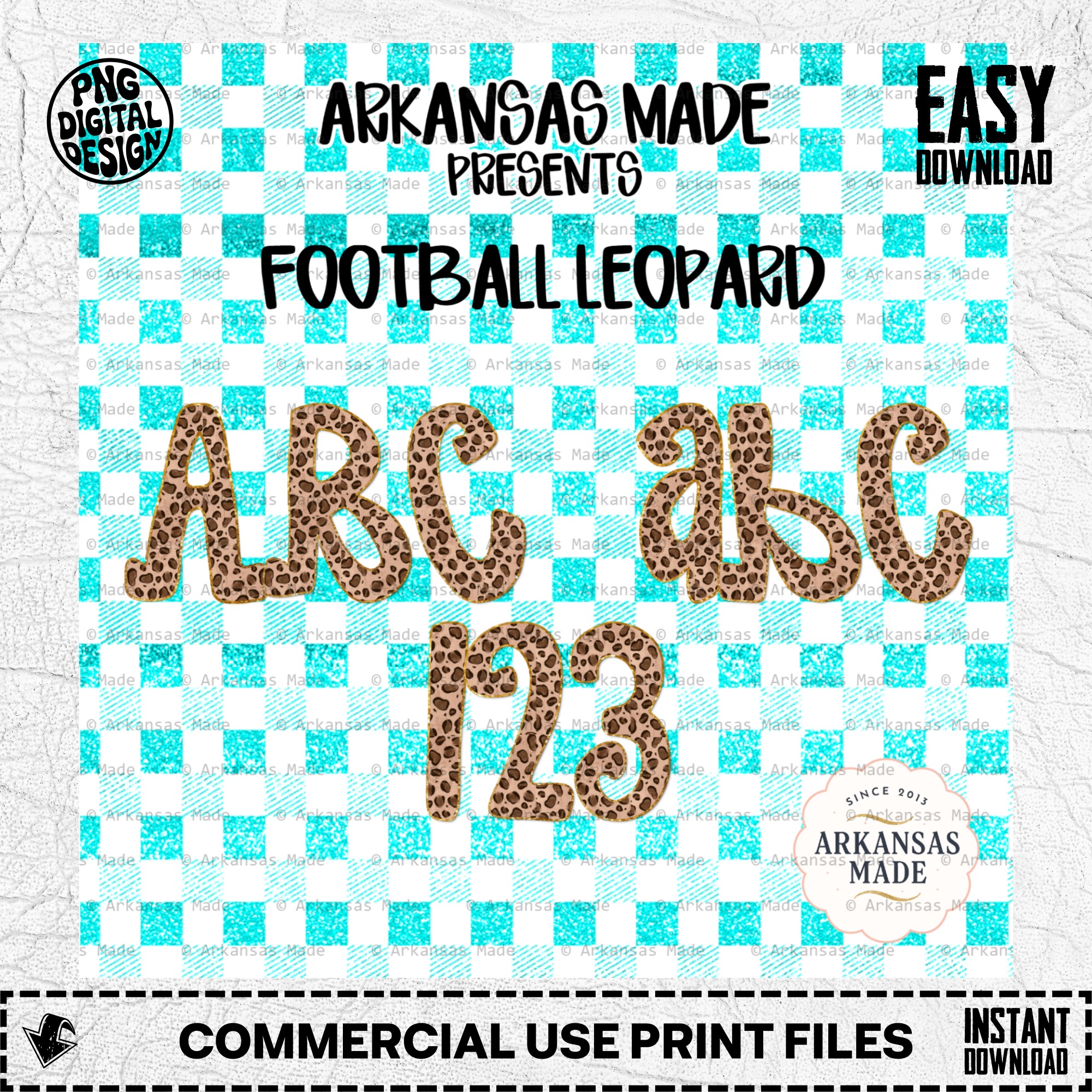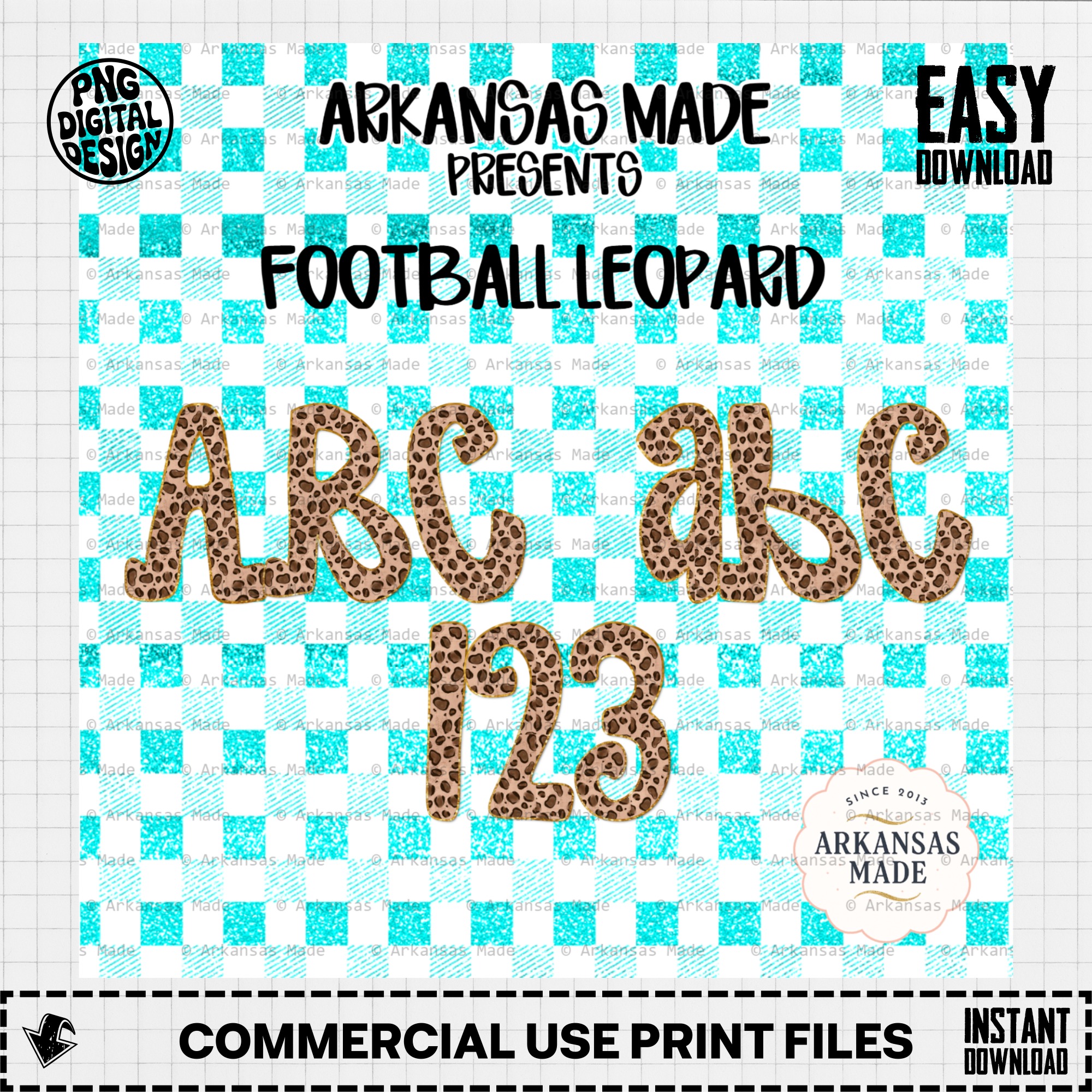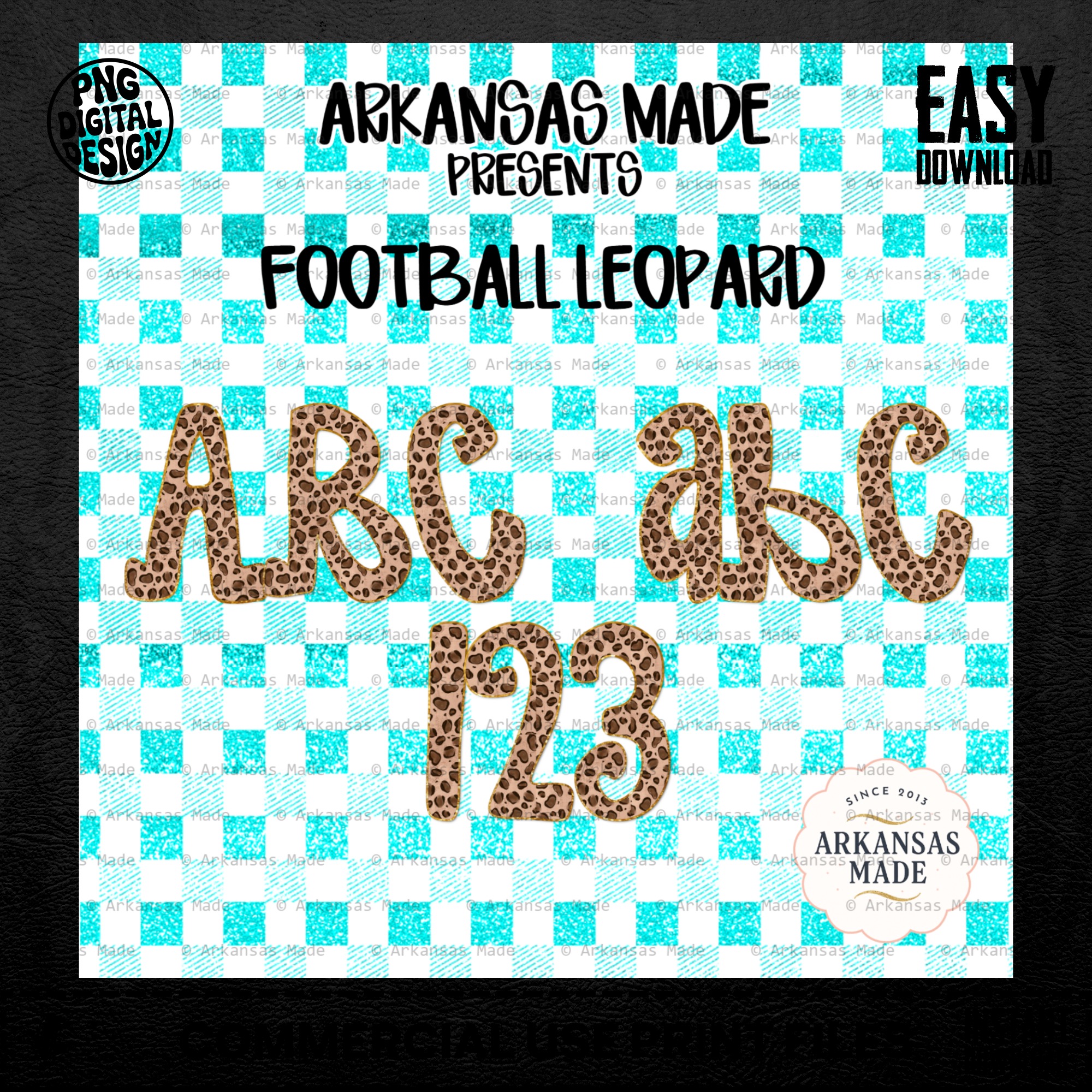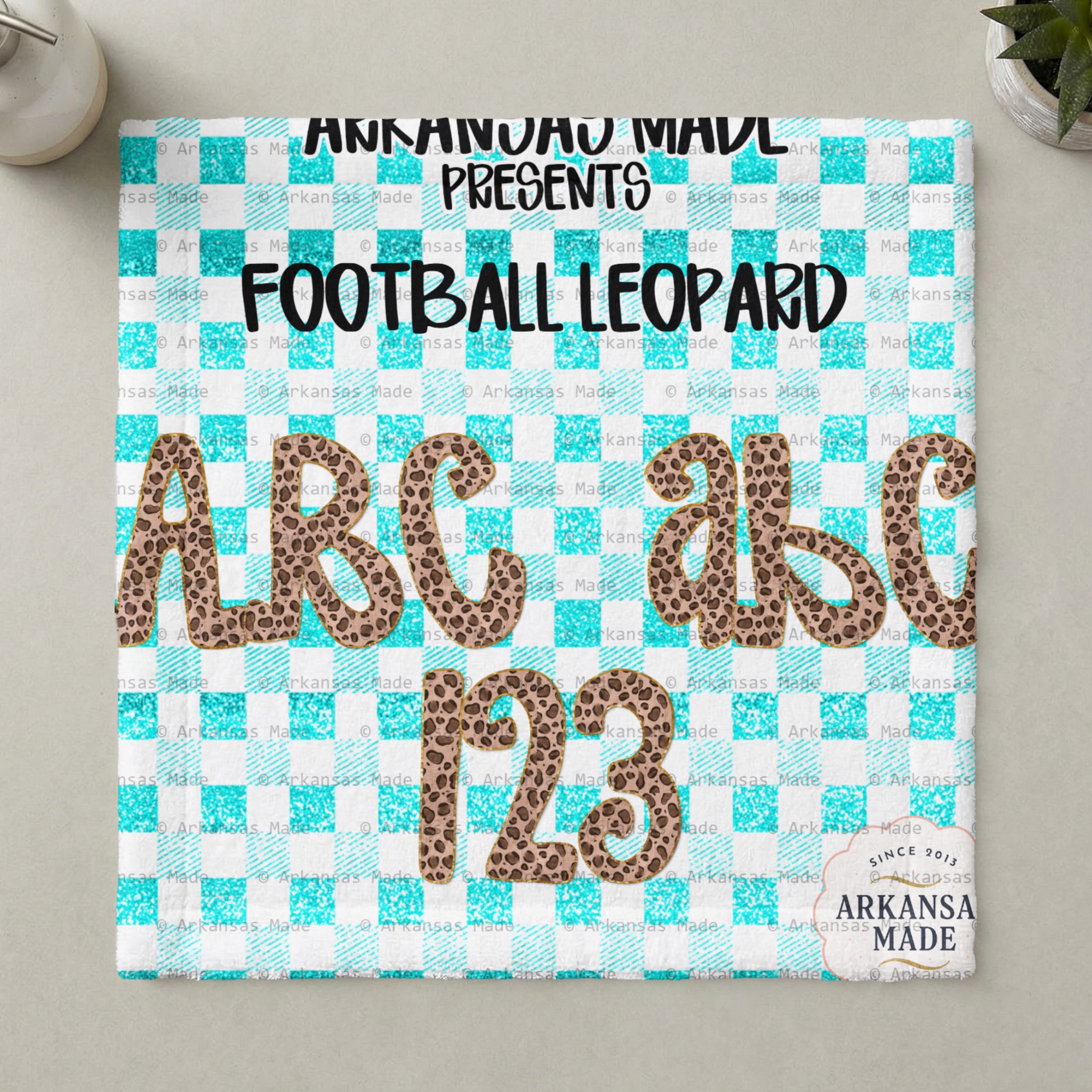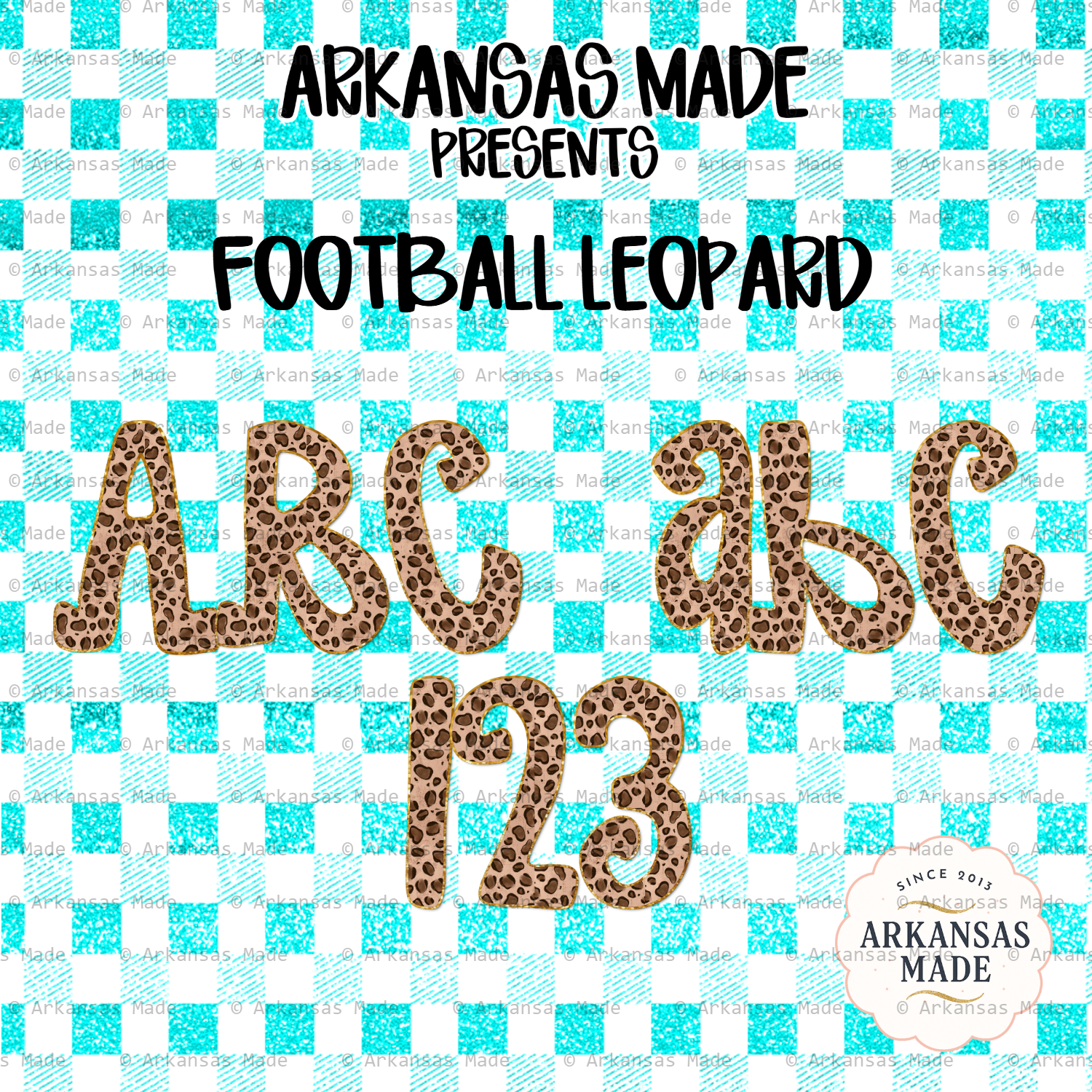
Leopard Print Alphabet PNG, Football Leopard Digital Alpha PNGs, Full Animal Print Font & Numbers for Game Day Crafts, Commercial Use
Unleash your creativity with this trendy Leopard Print Alphabet PNG set! Get the full digital alpha PNGs and numbers for all your DIY projects. Embodying a playful sports-chic vibe, this collection is perfect for crafting unique game day apparel, personalized gifts, or stylish classroom materials. Ideal for sports moms, teachers, or small business owners, it’s a versatile resource for back-to-school or team celebrations.